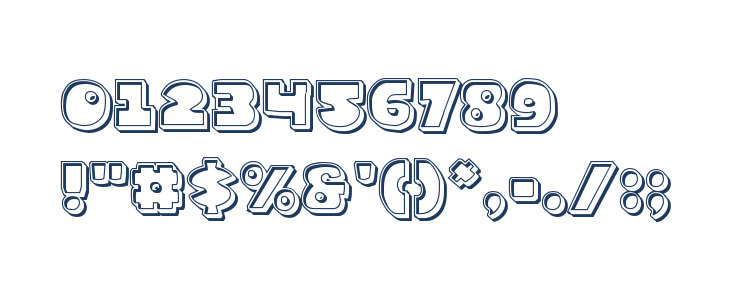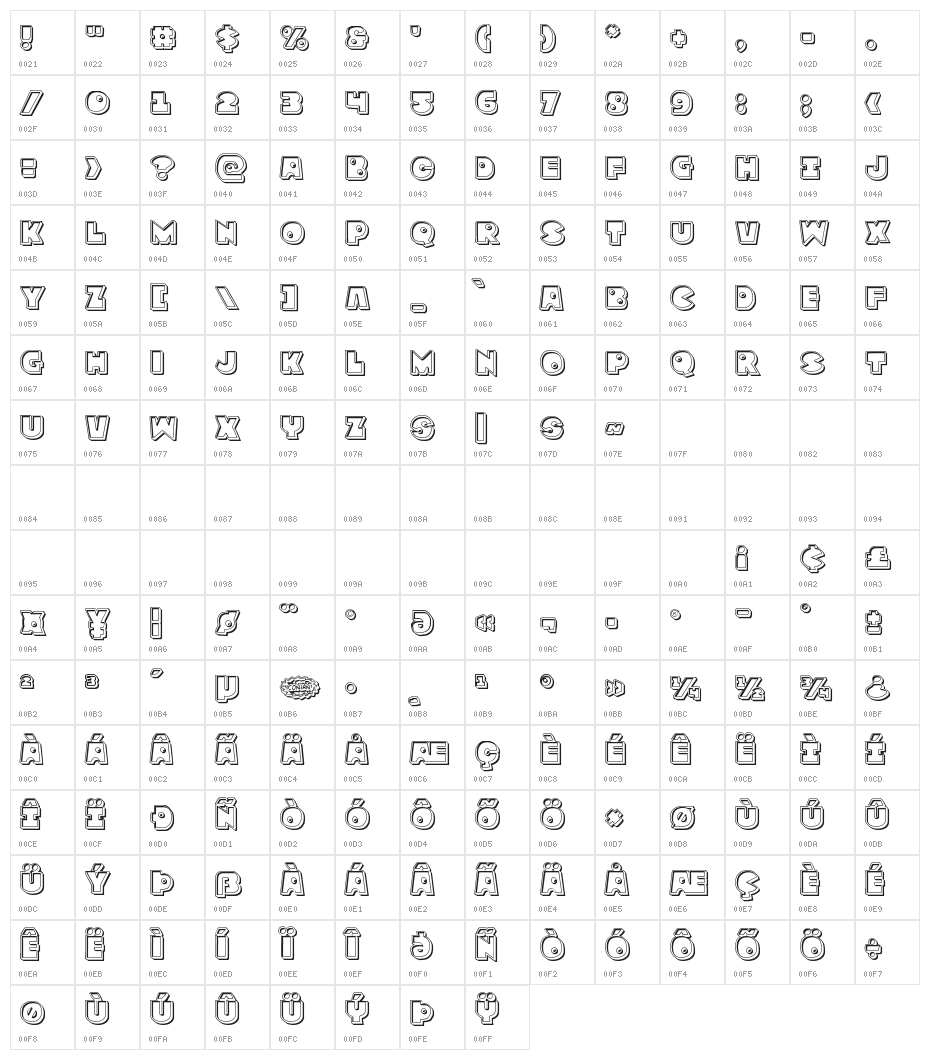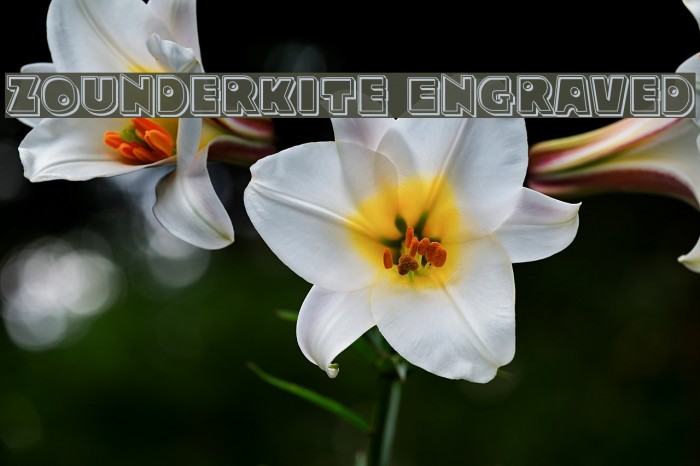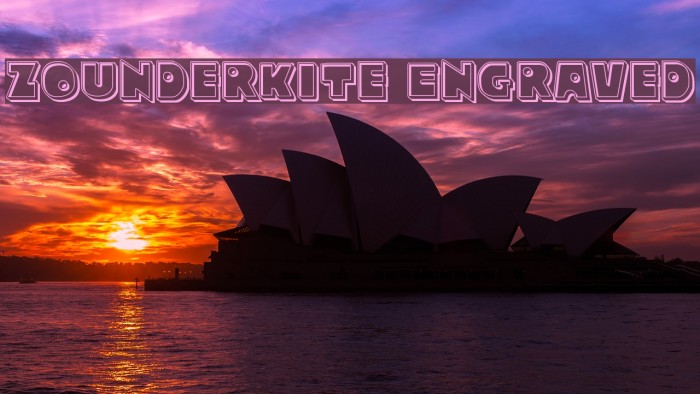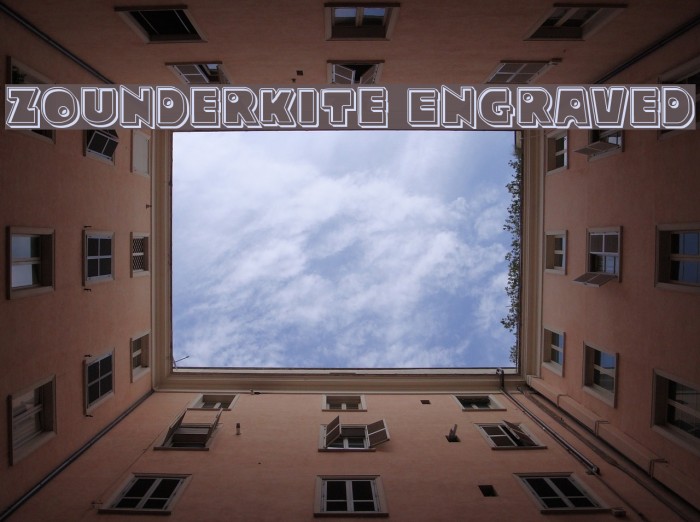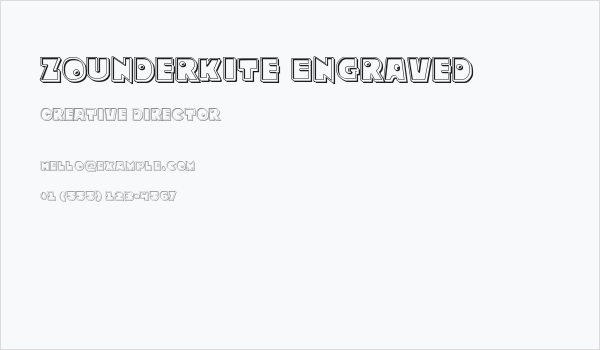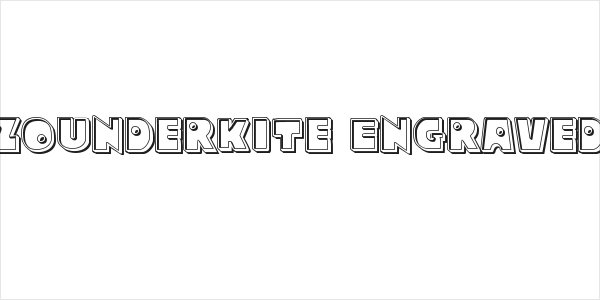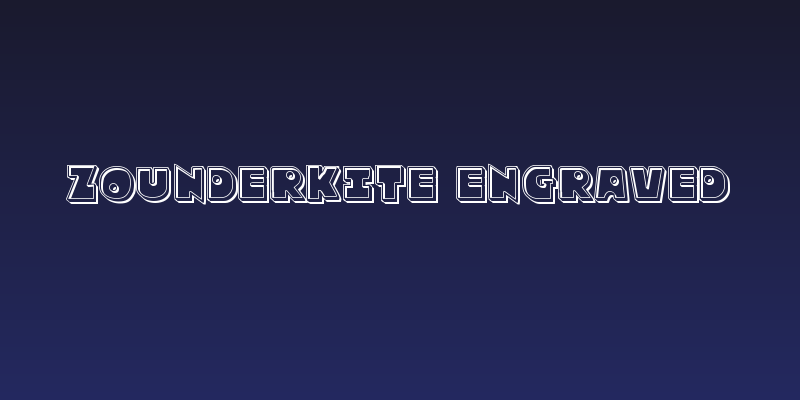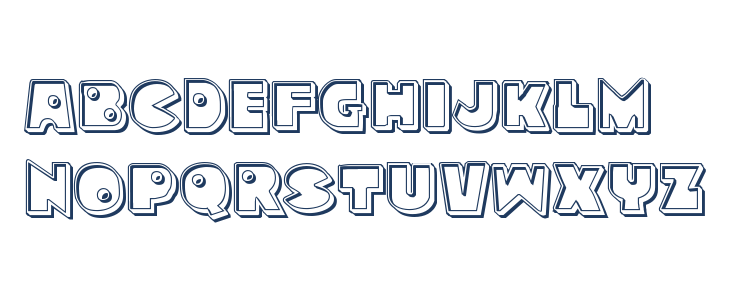
Zounderkite Engraved Font
Zounderkite Engraved Description
This font features a bold, three-dimensional engraved style that stands out with its thick outlines and shadow effects. The characters are uppercase and lowercase, with a playful and dynamic appearance. The design incorporates a sense of depth, making it ideal for eye-catching displays. The numerals and special characters maintain the same bold and engraved aesthetic, ensuring consistency across all glyphs. The font's unique style is both modern and decorative, making it suitable for projects that require a strong visual impact.
| Proposed Projects | Ideal for posters, headlines, logos, and any design requiring a bold, eye-catching font. |